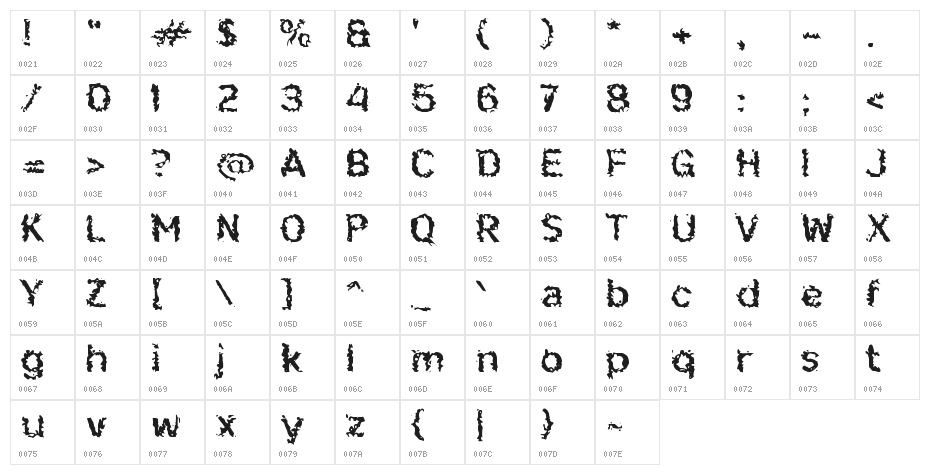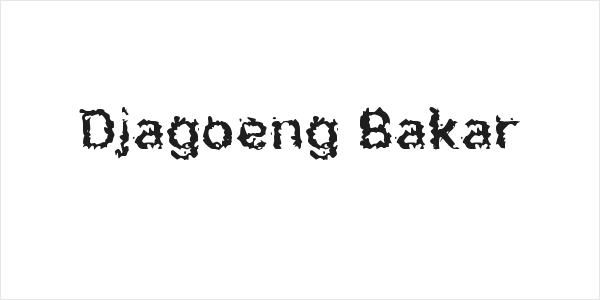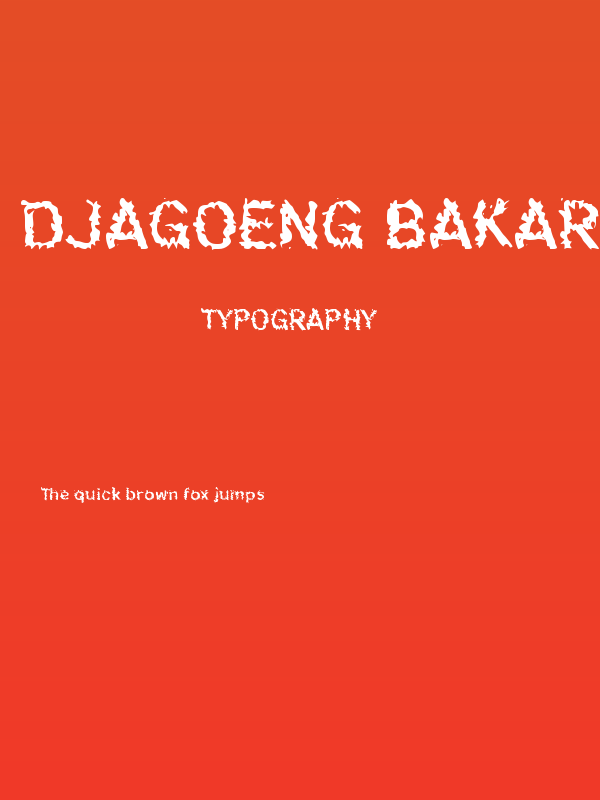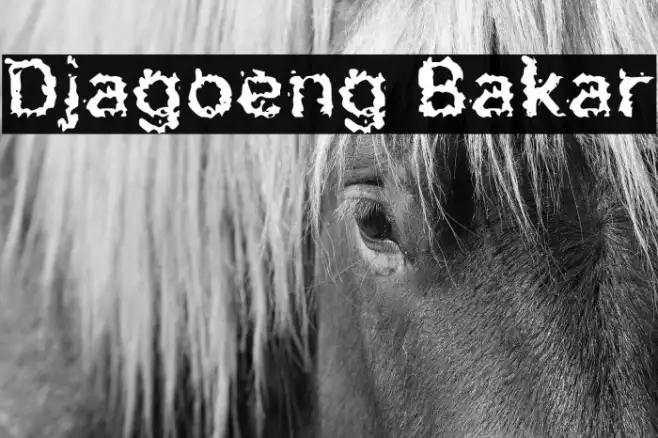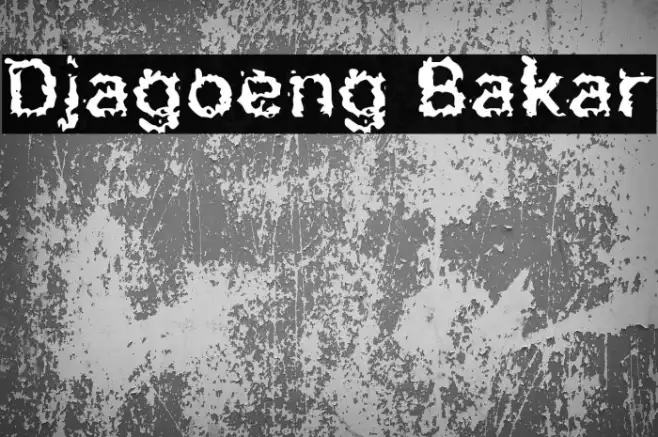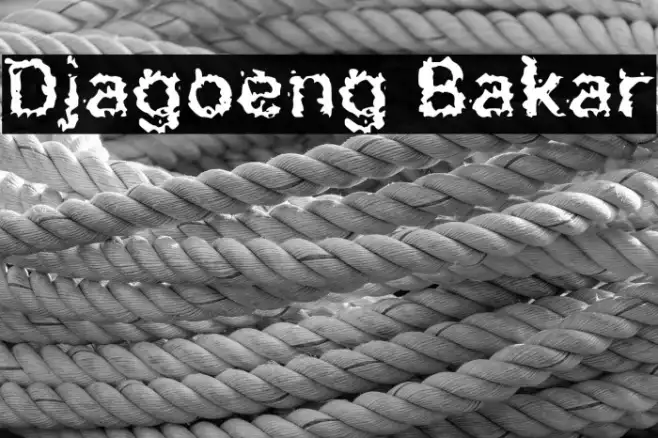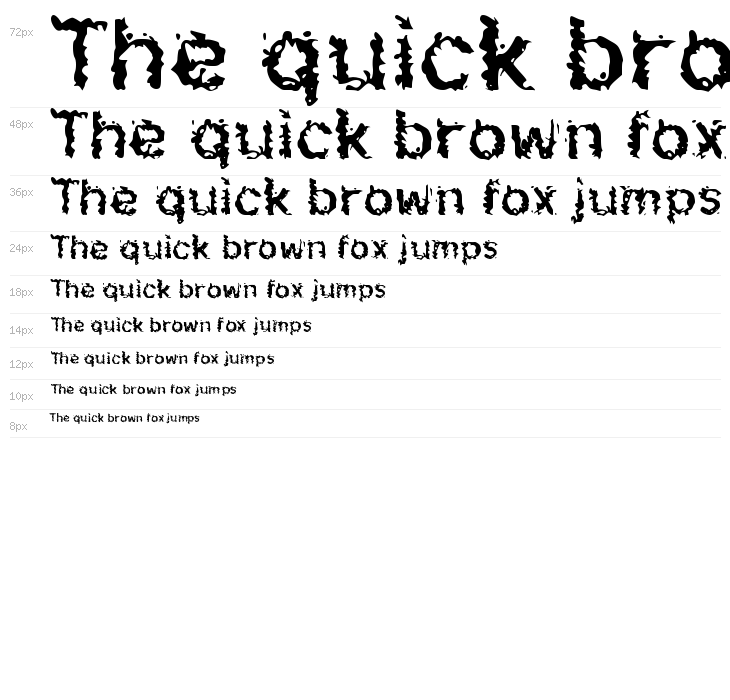
Djagoeng Bakar Font
Djagoeng Bakar Description
This font features a highly decorative and unique style, characterized by its jagged, irregular edges that give it a dynamic and edgy appearance. The letters appear as if they are being consumed by flames or organic growths, creating a sense of movement and energy. This design choice makes it stand out as a bold statement piece, suitable for projects that require a strong visual impact. The uppercase and lowercase letters maintain this theme consistently, with numbers and special characters also following the same aesthetic. The font's distinctiveness makes it ideal for creative and unconventional uses.
| Proposed Projects | Ideal for Halloween-themed designs, horror movie posters, edgy album covers, or any project needing a dramatic and eye-catching font. |